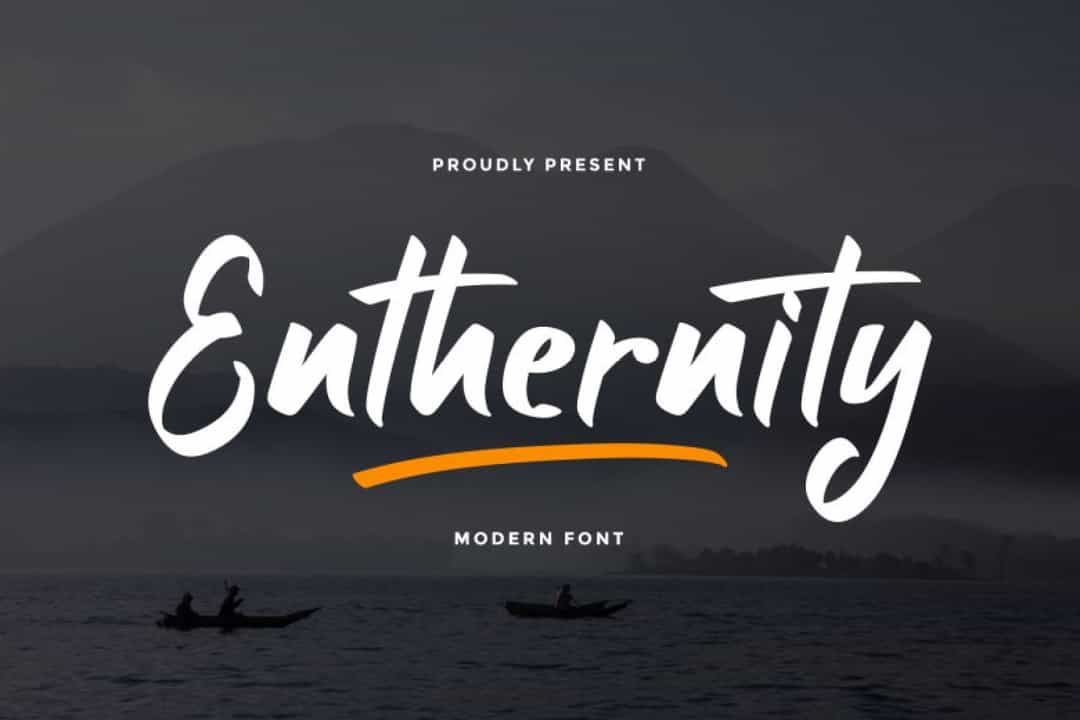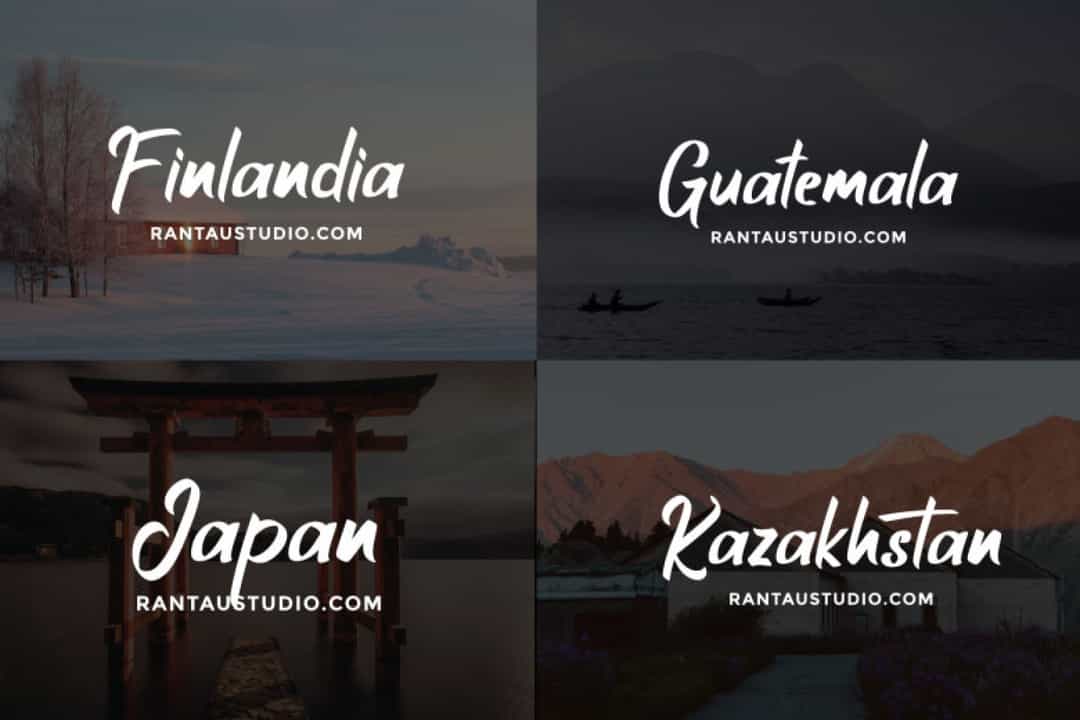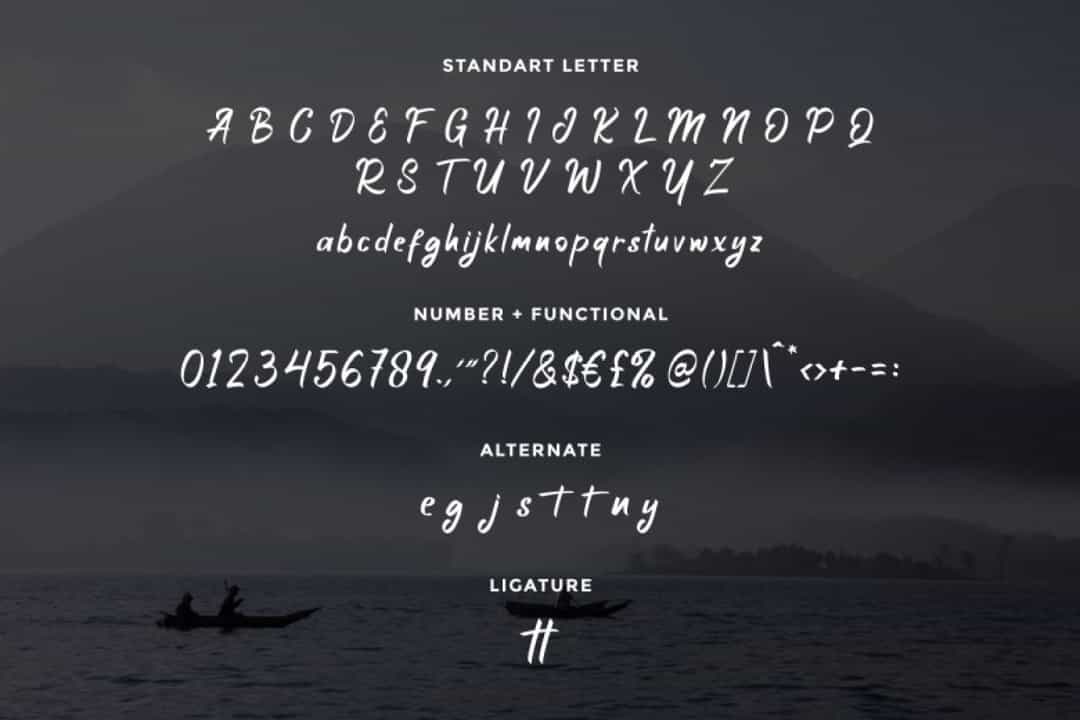
Enthernity is a modern, genuine and daring type of style developed by us. Each curve is embellished with my signature touch for a creative glance that is ideal for logotypes, branding, promotional advertisement, quotes packaging, T-shirt design merchandise, posters, social media, etc.